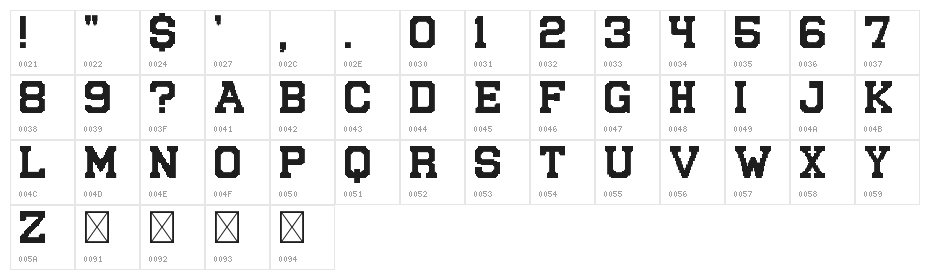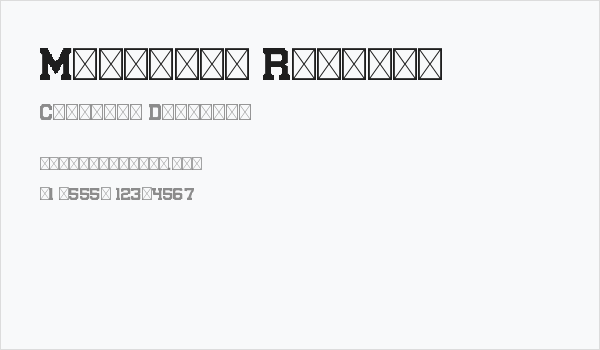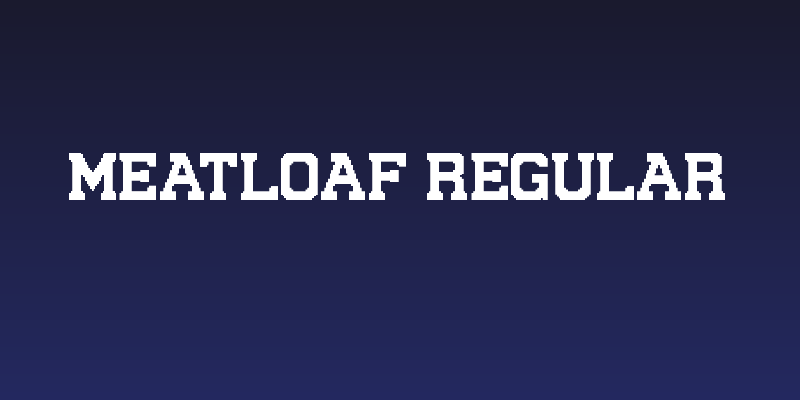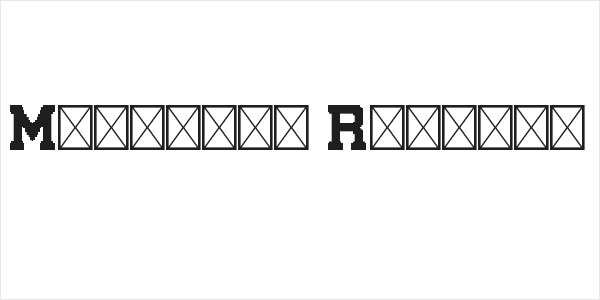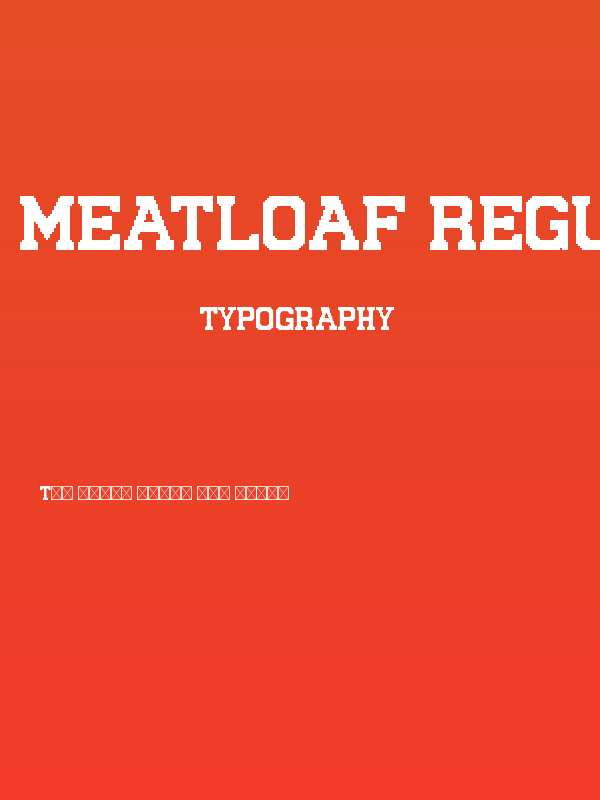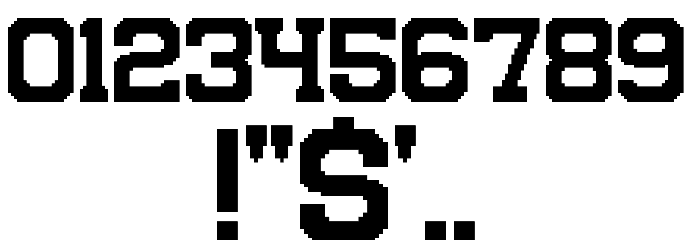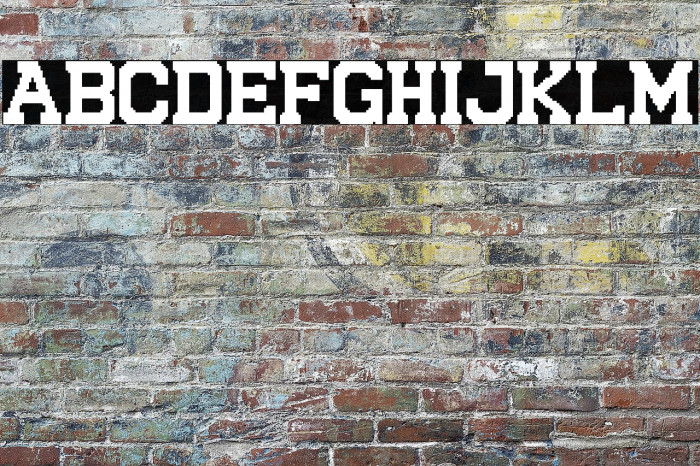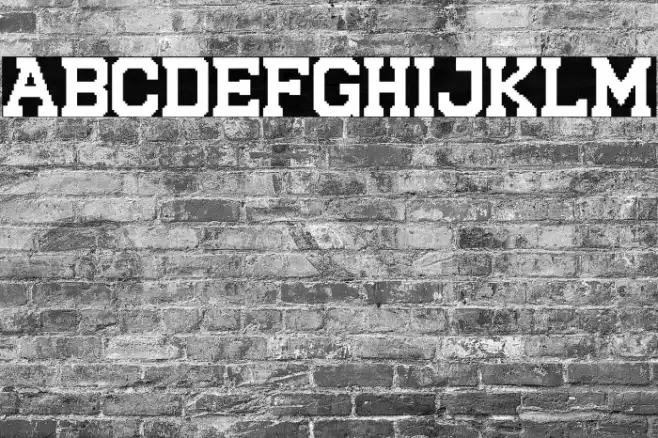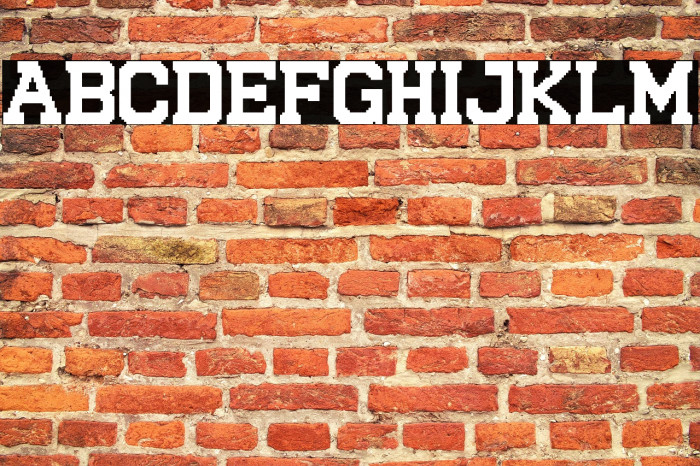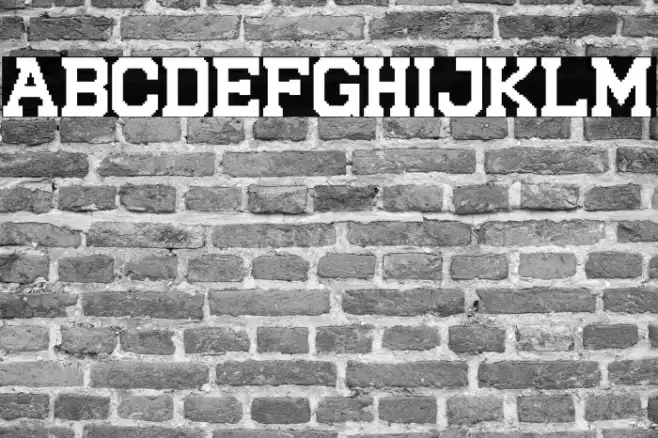
Meatloaf Regular Font
Meatloaf Regular Description
This font features a bold and robust design with strong, block-like characters that convey a sense of strength and stability. The uppercase letters are uniformly structured, offering a consistent and cohesive look across the alphabet. The numbers and special characters maintain this bold aesthetic, ensuring readability and impact. The font's geometric shapes and thick strokes make it ideal for attention-grabbing designs. Its solid and sturdy appearance is perfect for projects that require a commanding presence.
| Proposed Projects | Ideal for posters, headlines, branding materials, and any project needing a bold statement. |